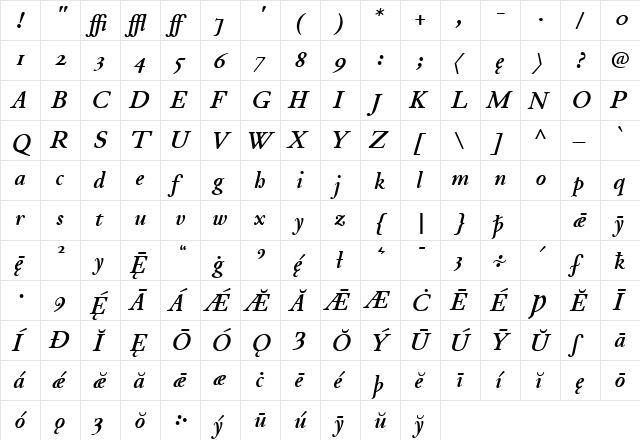
JuniusModern BoldItalic
Design Context for JuniusModern Typeface
JuniusModern is a composed and adaptable typeface that performs quietly and consistently across a wide range of design contexts. Its italic angle brings a sense of urgency and motion to the letterforms. Its bold stroke weight gives it real presence on the page.
Pro Tip: Try JuniusModern for annotation and caption copy alongside an upright companion — the contrast in angle creates a dynamic but ordered typographic system.